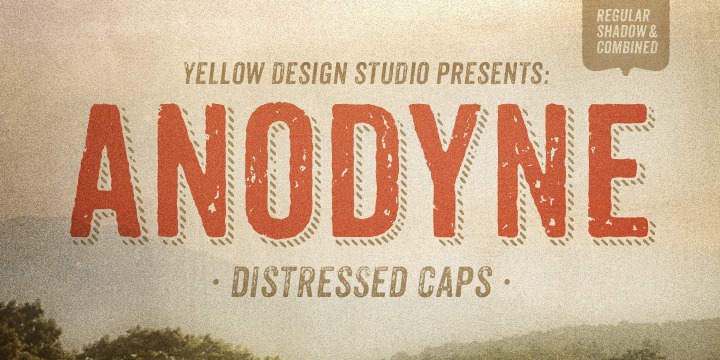
Magesta Script Font
Magesta Script
Magesta Script is set of four italic retro types created by Ryan Martinson and published by Yellow Design Studio. Capturing the warm, humanistic and imperfection qualities of letterpress printing, Magesta Script provides designers with vintage textures that are so much needed for refined clients.
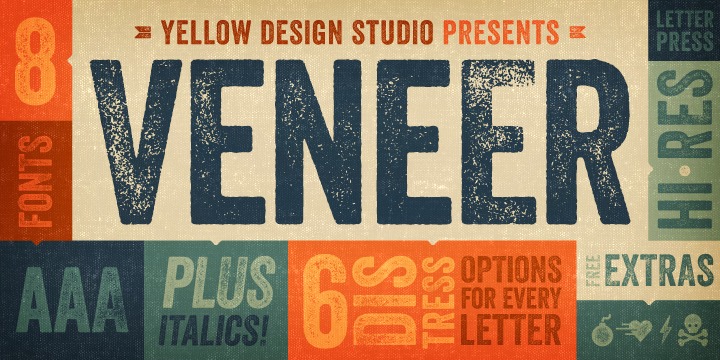Salute Font
Salute
Salute is a typeface created by Mateusz Machalski and published by Borutta. It is a sans-serif family that has caps only letterpress type. Enjoy!
Wishes Script Font
Wishes Script
Wishes Script is a calligraphic handwritten typeface created by Sabrina Mariela Lopez and published by Typesenses that has frames, ribbons,  hearts, flowers, a lot of ornaments, two styles, 990 glyphs etc. It is perfect for wedding invitation, magazine, logos, packaging, posters etc. Enjoy!
Bojo Font
Bojo
Bojo is a typeface created by Mateusz Machalsky and published by Borutta. You’ll find 8 styles based on woodtype print recommanded for magazines, poster, logo, display etc.
Wausau Font
Wausau
Wausau is a dirty serif typeface created by Ryan Martinson and published by Yellow Design Studio. With its vintage feel and featuring double-letter ligatures, Wausau is great for adding a western saloons wood flavor your designs or even media headlines.
Lito Font
Lito
Lito is a vintage typeface created by Mateusz Machalski and published by Borutta in 2013.
Veneer Font
Veneer
Veneer is a typeface created by Ryan Martinson and published by Yellow Design Studio. It is a vintage font with six distress options for every letter.
Cheap Pine Font
Cheap Pine
Cheap Pine is a typeface created by Hannes von Döhren and published by HVD Fonts. If you are looking for a font to influence the color of the shadows, you find it. Also, you’ll find a lot of simbols arrows, stars, hands etc. to use in your projects.
Anodyne Font
Anodyne
Anodyne is a typeface created by Ryan Martinson and published by Yellow Design Studio. If you want to be creative and have fun with a hand-printed texture and unique shadow options, buy Anodyne! It also has an extended character set for multiple language support.
Poem Script Pro Font
Poem Script Pro
Poem Script Pro is a typeface created by Alejandro Paul and published by Sudtipos. Buying this font, you will find plenty of variatoins on each letter and comes with hundreds of calligraphic ornaments.
Woodie Font
Woodie
Woodie is a typeface created by Mateusz Machalski and published by Borutta in 2012.
Ciclope Font
Ciclope
Ciclope is a font created by Carlos Fabian Camargo Guerrero and published by Andinistas that works as a raw material in the exploration of new graphic design. You can use this new typeface to write the headlines.